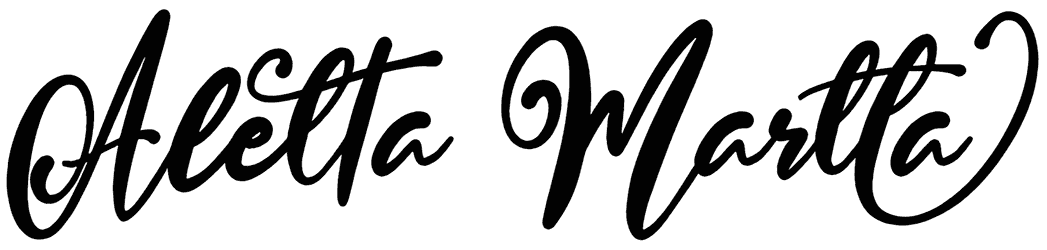
Aletta Martta Font
Aletta Martta is a modern, authentic-looking script font with exaggerated curves and embellishments. This issue has made reading the content with this font challenging.
Using this handwritten font on packages, album covers, and anywhere else in your design can significantly attract the audience and is one of the determining factors of its success. So if you want an elaborate font to create a pleasant touch in your writings, Aletta Martta can emphasize its handwritten and stylish effects.